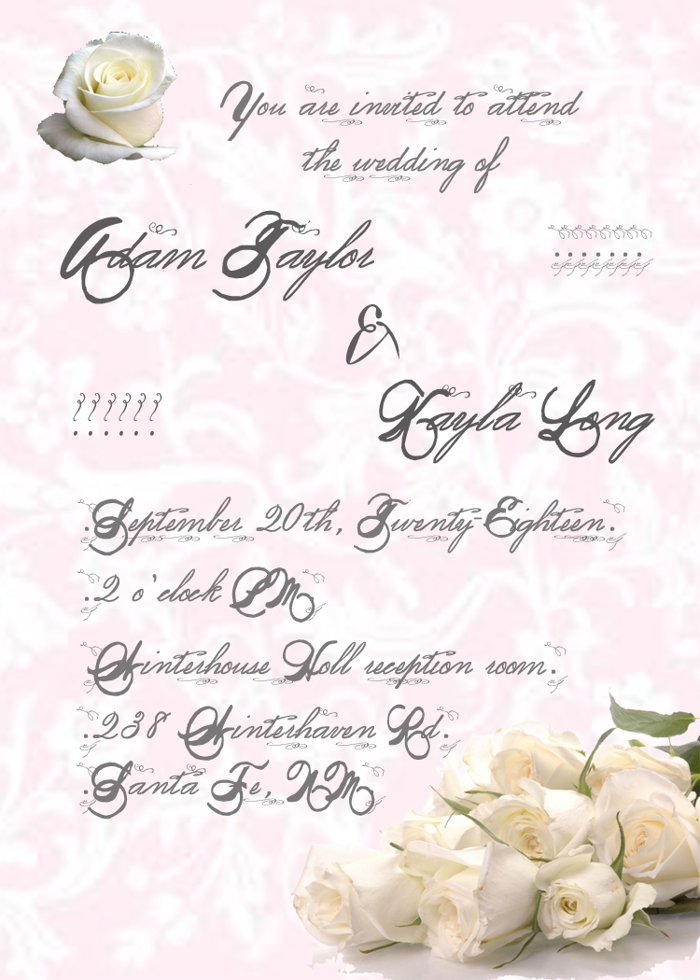
Cherish Is the Word Demo Font
About Cherish Is the Word Demo Font
Cherish Is the Word font is a form of Spencerian script handwriting. It features large capitals done as calligraphy with heavy and thin lines and very ornate loops. This font family is lightly flourished. As a Demo version, you may use it for personal use and to test it. Contact me for full version licensing and pricing.